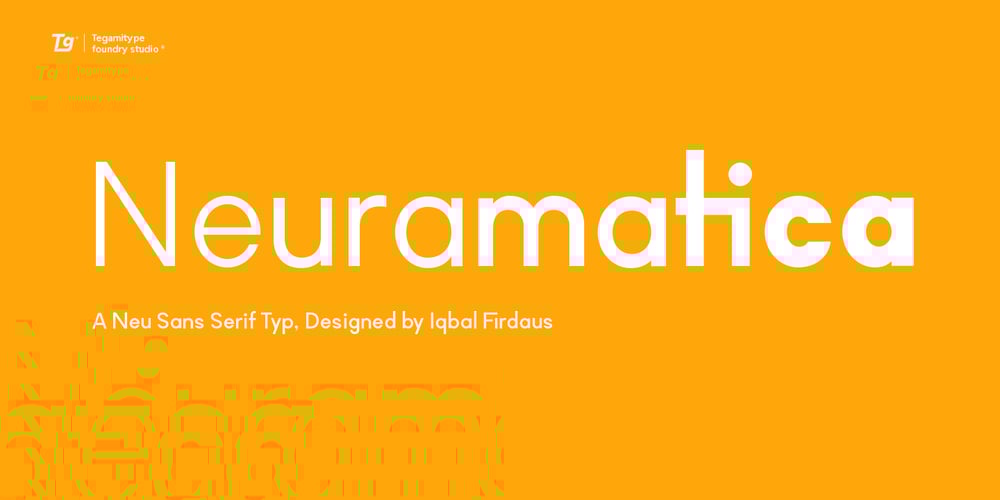
TG Neuramatica Font Family was designed by Iqbal Firdaus and published by Tegami Type. TG Neuramatica contains 1 styles and family package options. Neuramatica is a low contrast sans serif font. Simple letter form makes that this font has a high level of legibility. Thus making Neuramatica look very modern. Neuramatica has five different weights, ranging from Light, Regular, SemiBold, Bold and Black. This font is highly recommended for use as a bodytext or headline, because it has good legibility. Design with a swiss style is perfect to use this font because it gives the impression of a modern and simple but still able to read well.